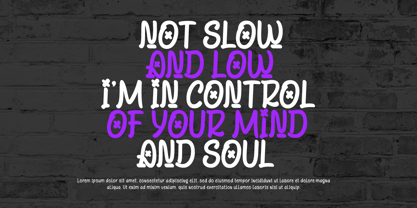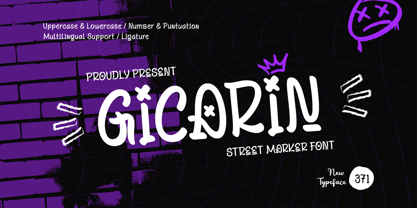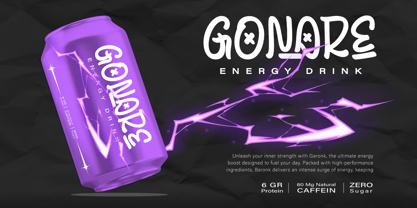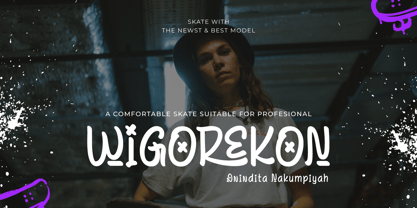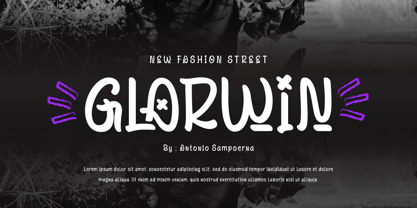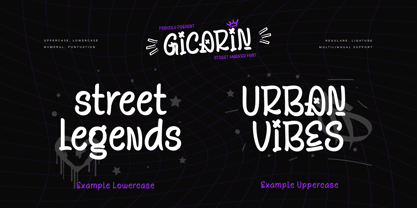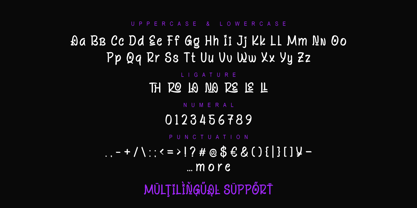
Gicarin
von Trabas Kriya
Die Schriftfamilie Gicarin wurde von Murozakul Akhsan entworfen und von Trabas Kriya veröffentlicht. Gicarin enthält 1 Stile.
GICARIN - Graffiti Display Font is a bold and expressive typeface that embodies the raw energy of street art. With its graffiti-inspired strokes and rebellious flair, Gicarin is perfect for urban designs, streetwear branding, music covers, and any project looking for a dynamic, edgy aesthetic. This font captures the spontaneous, artistic spirit of graffiti culture, making your designs stand out with bold authenticity.
Unleash the power of street style with Gicarin, and add an urban, creative edge to your projects.